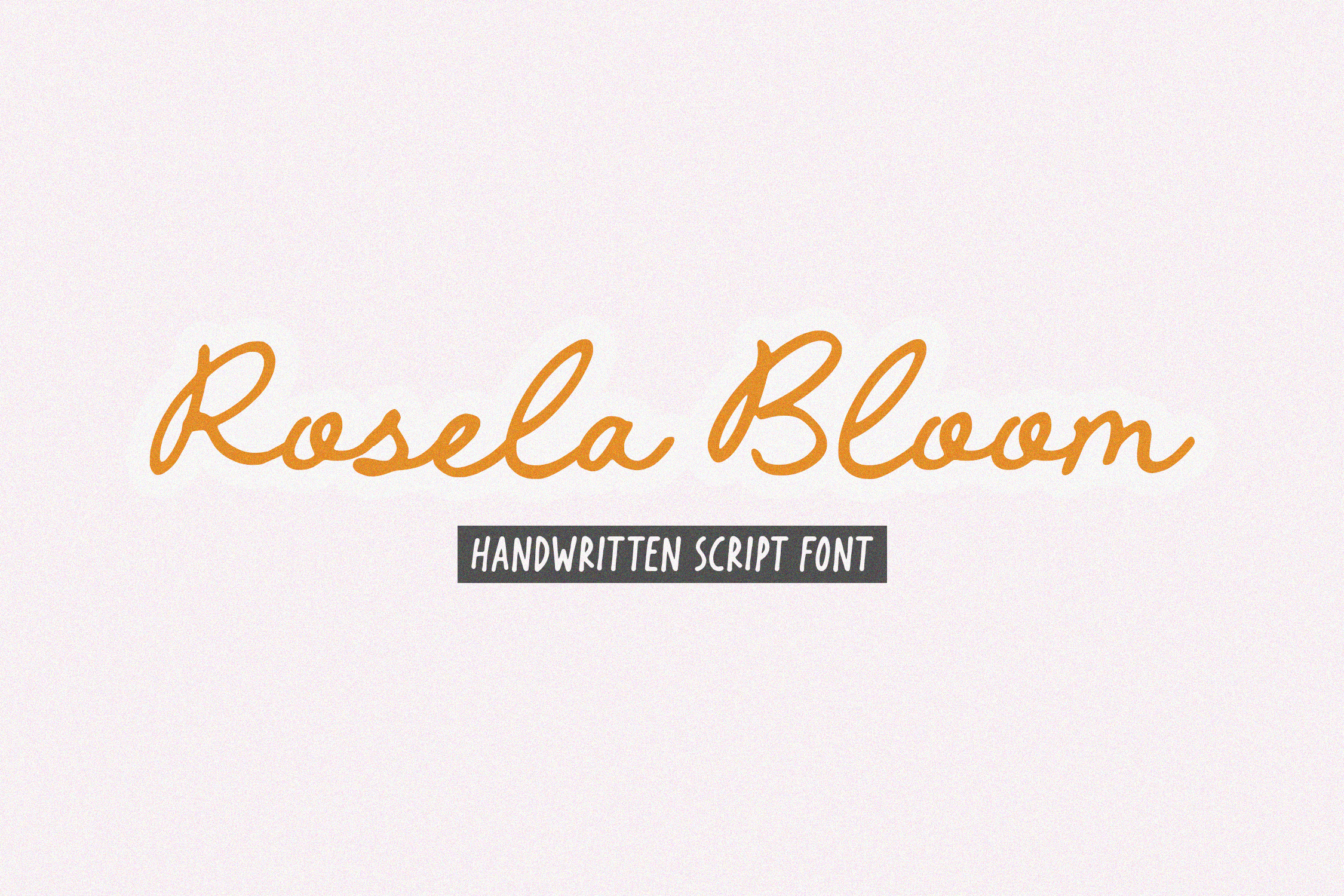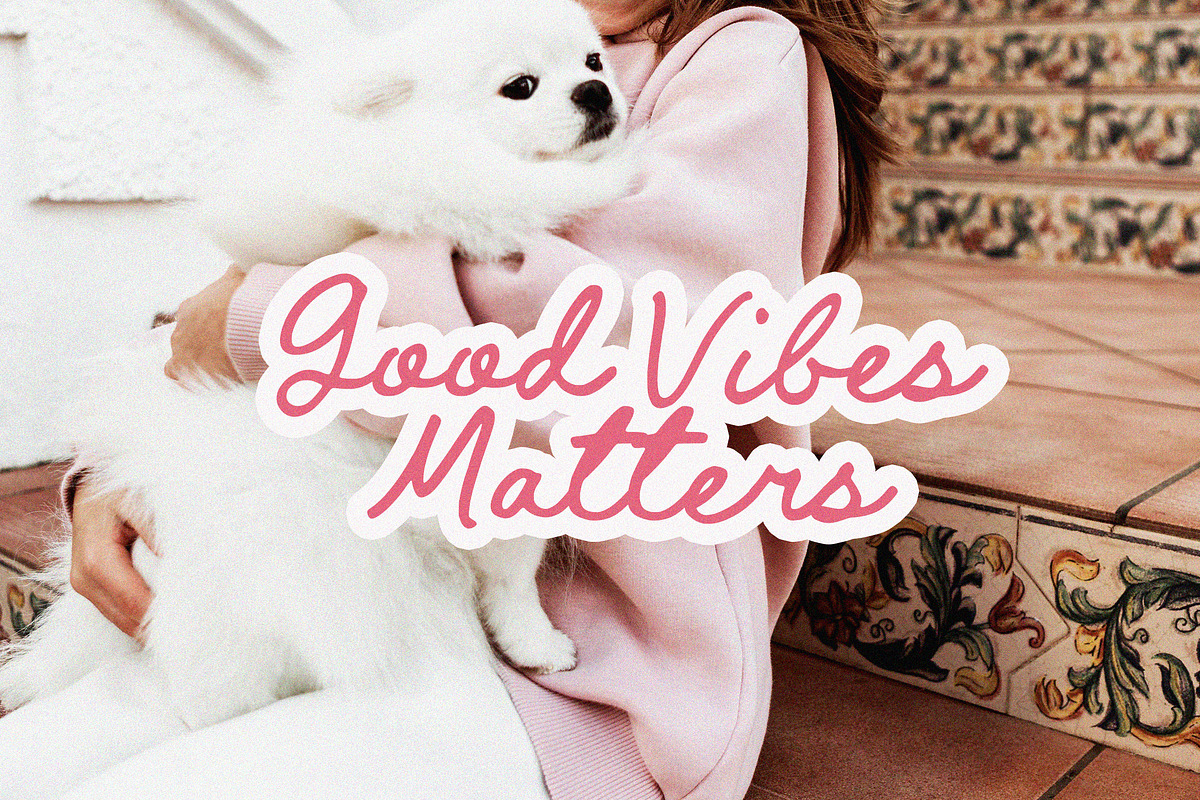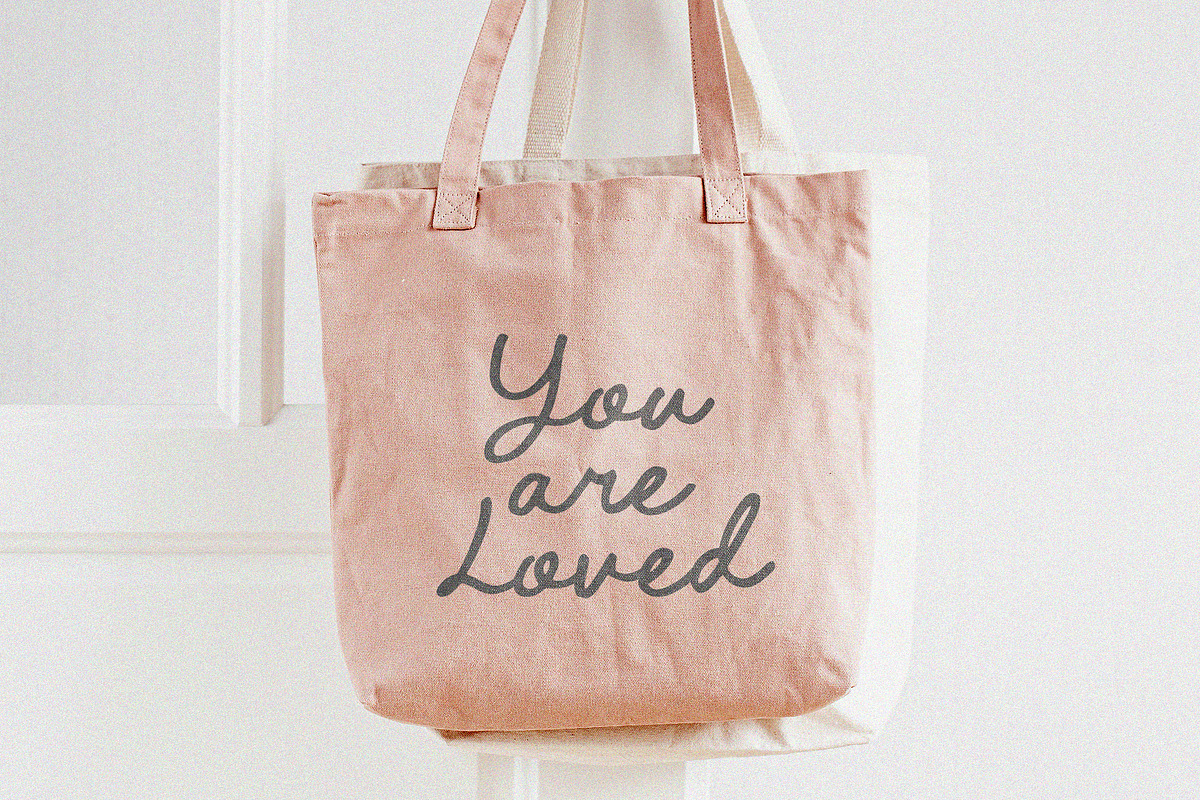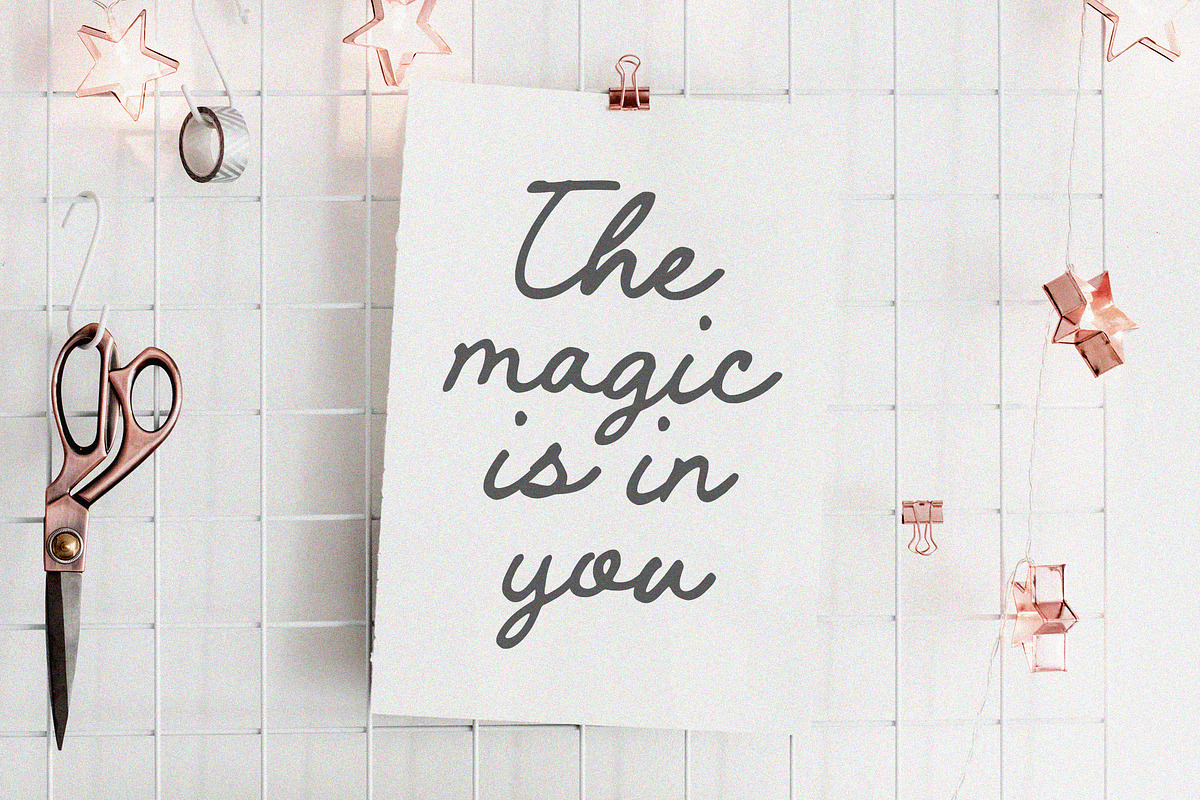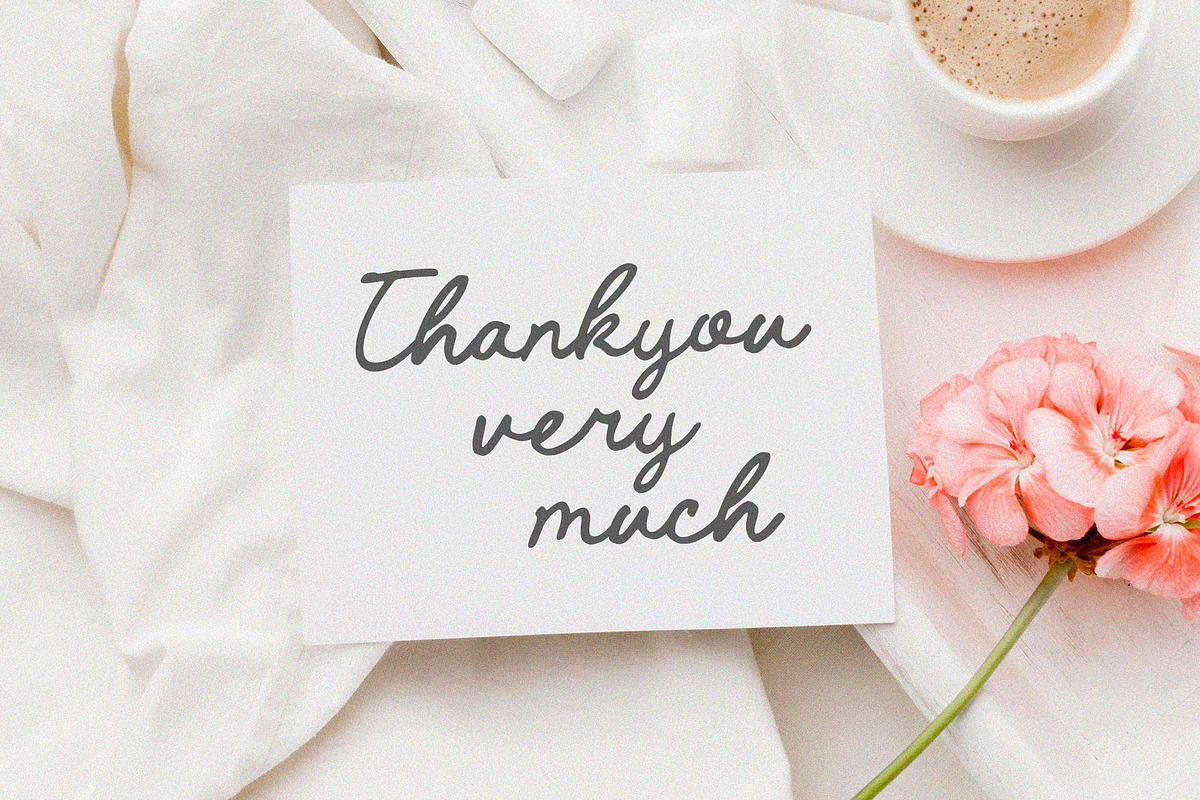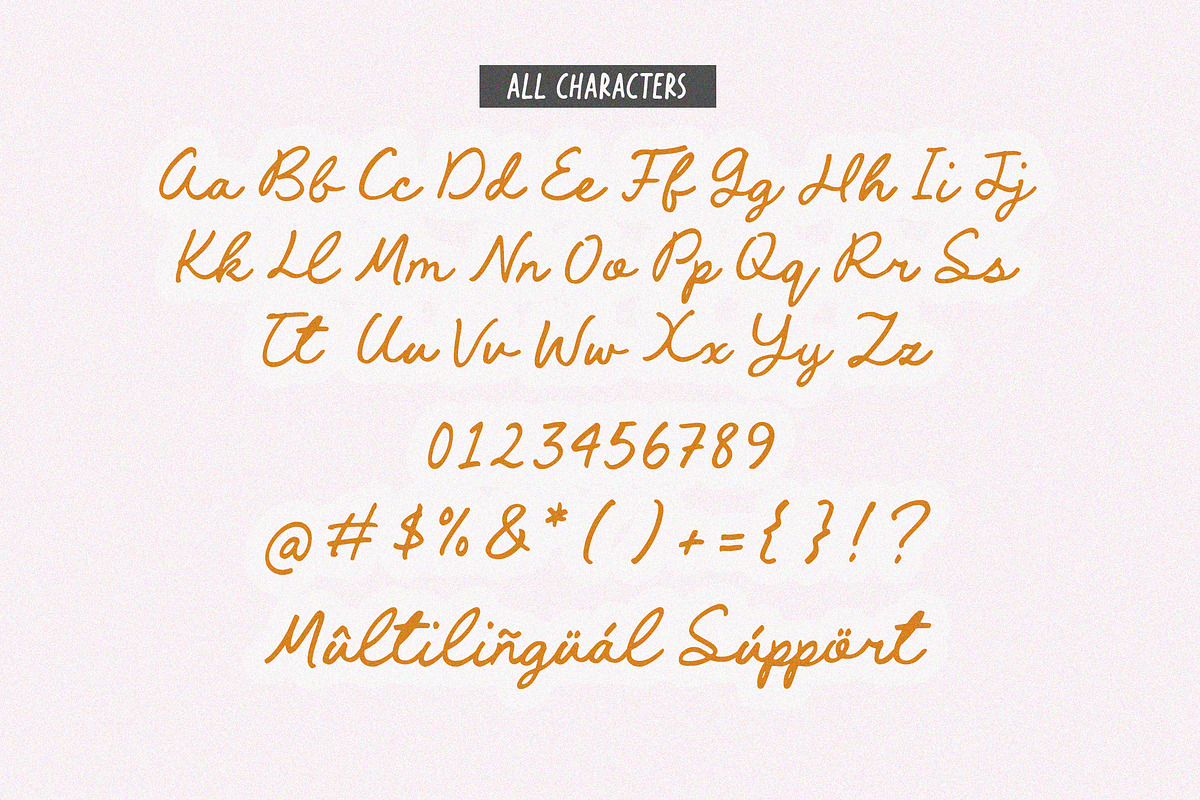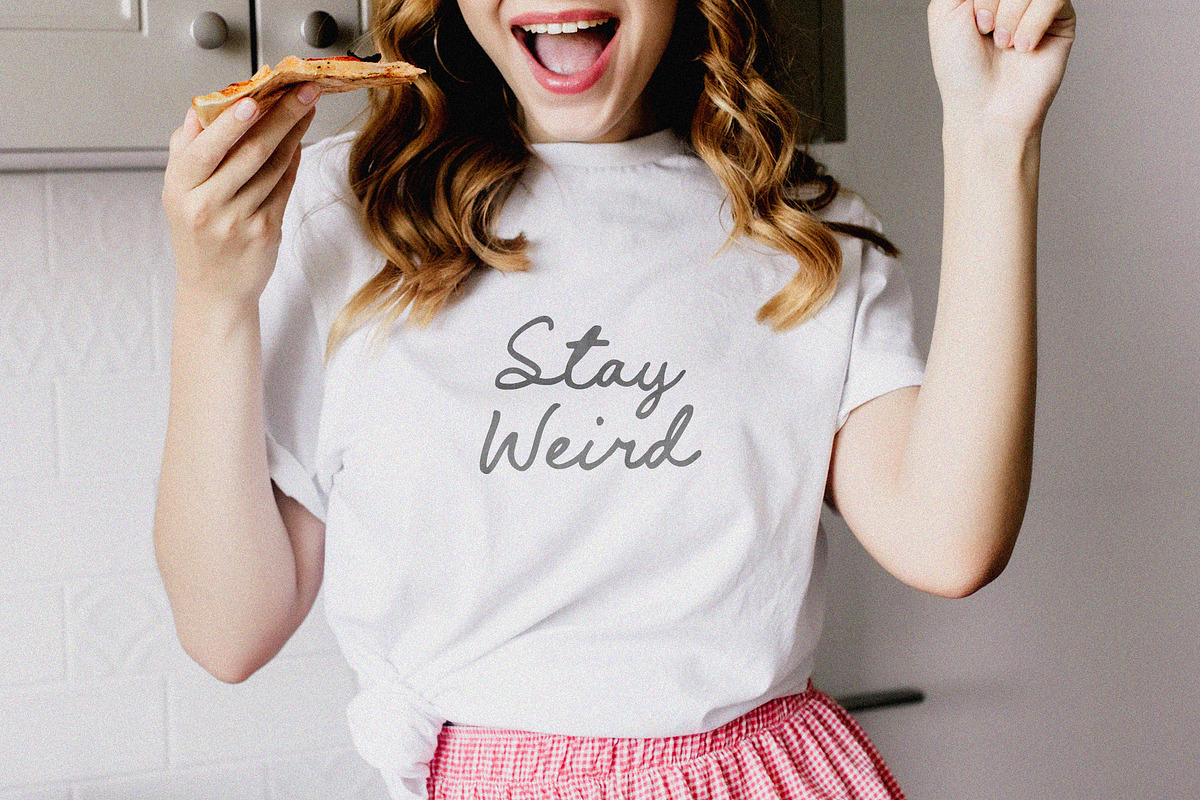
Rosela Bloom Font
Rosela Bloom is a Handwritten Script Font
This font is a elegant handwritten script font characterized by smooth, flowing curves and a well-balanced, stylish appearance. It carries a natural, feminine feel with decorative swashes and ligatures, making it highly versatile for creative projects. Commonly used for logos, wedding stationery, branding, and editorial designs, this font adds a modern yet graceful touch to any visual composition.
Rosela Bloom Font also supports multilingualism